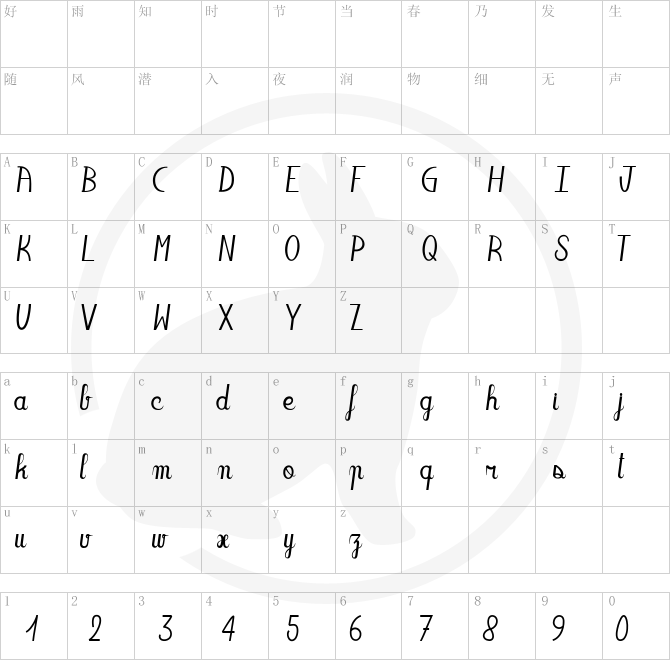
- Font Name:Oakland Sista
Oakland-Sista.ttf is a very beautiful artistic font, Oakland-Sista.ttf is widely used in the design and printing of various books and pictures,Oakland-Sista.ttf has a strong visual impact,Oakland-Sista.ttf is a commonly used font in newspapers, magazines and books, and is used in posters, e-commerce Poster design, store design, logo design, font design and other fields.Oakland-Sista.